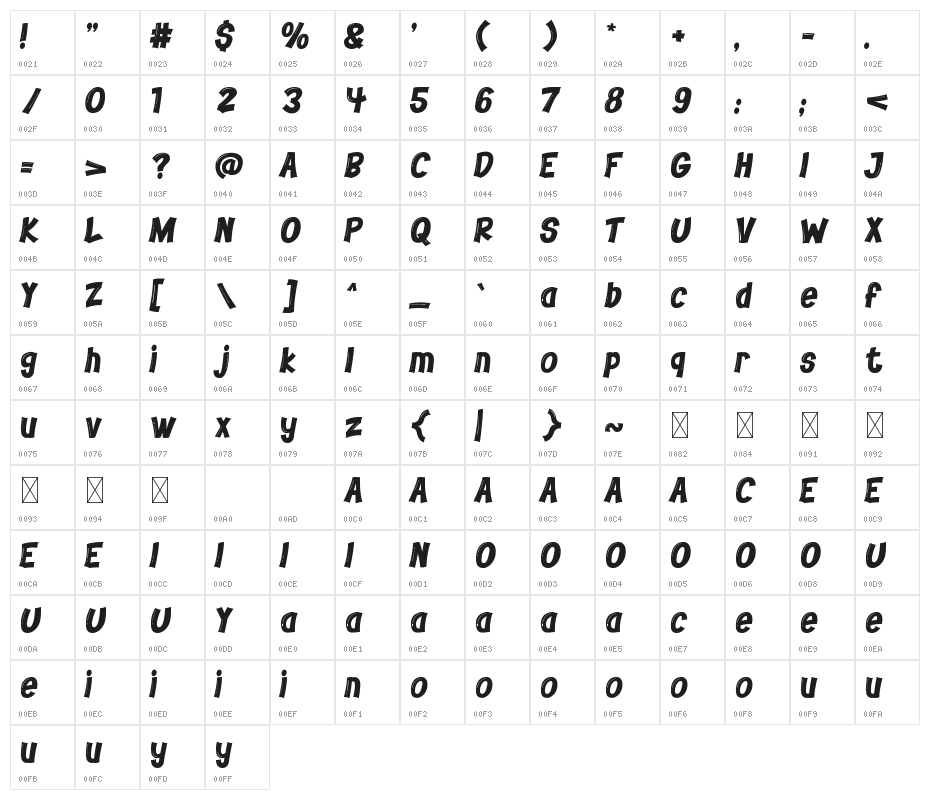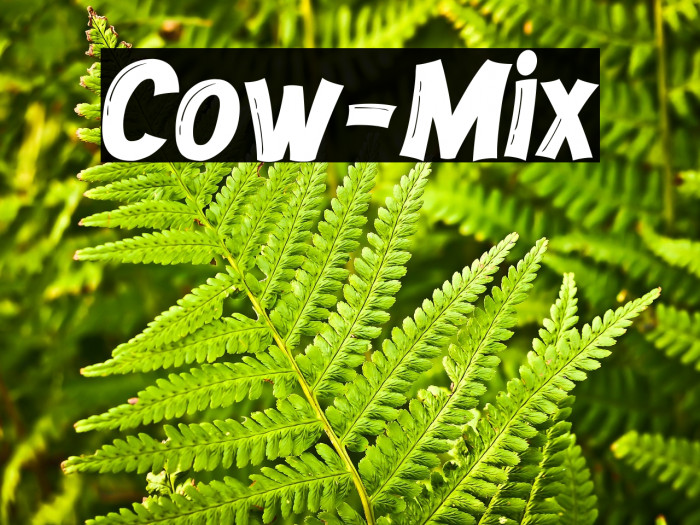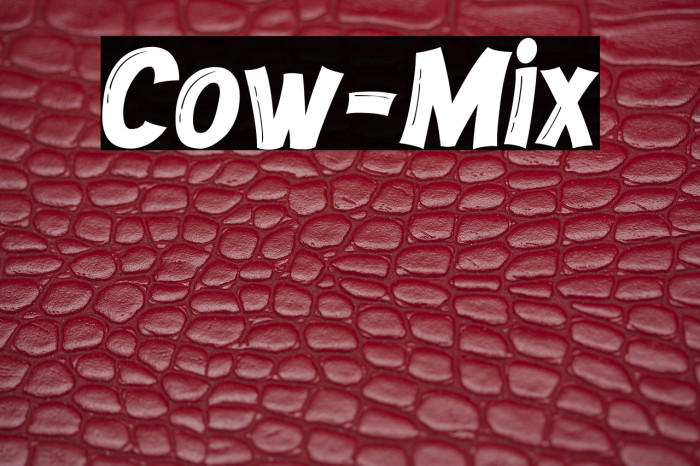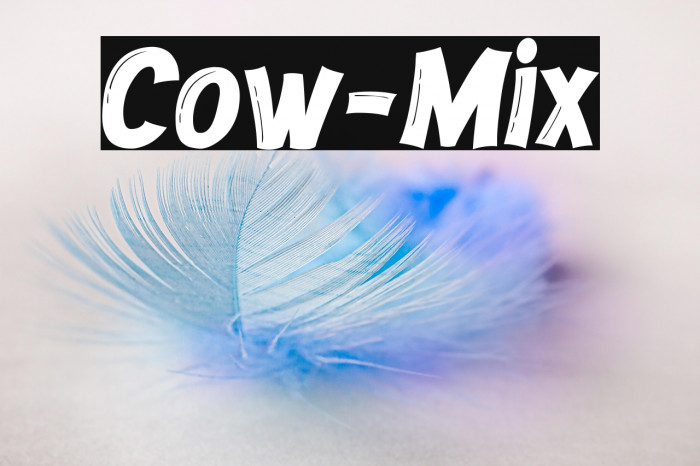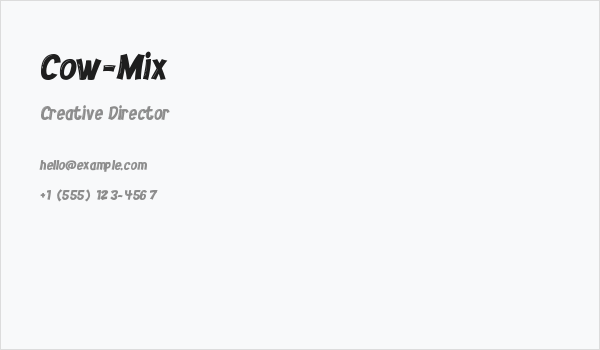
Cow-Mix Font
Cow-Mix Description
This font features a bold and playful style with a hand-drawn appearance. The letters are slightly slanted, giving a dynamic and energetic feel. Each character has a unique, irregular stroke pattern that adds to its whimsical charm. The uppercase and lowercase letters maintain a consistent style, with rounded edges and varying stroke widths that create a lively texture. The numerals and special characters follow the same playful design, making the font versatile for creative projects. Its boldness ensures high readability, while the quirky design adds a touch of fun and creativity.
| Overall Style | Playful, Whimsical |
| Proposed Projects | Ideal for children's books, comic strips, playful branding, and creative posters. |